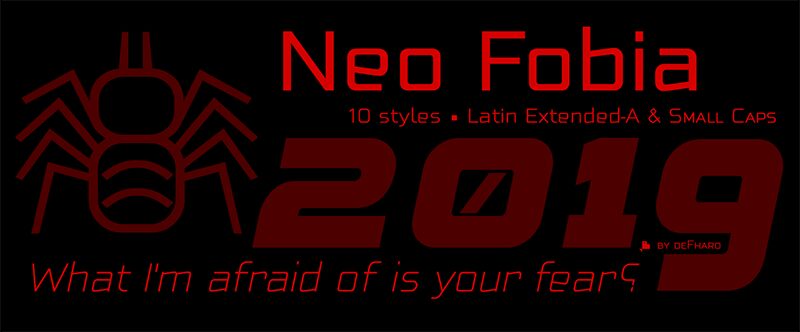
Neo Fobia is a sans serif typeface that includes letters in small caps, 10 exclusive fonts with square proportion of futuristic style with a geometrical design of maximum readability with a minimalist aspect. 2019
Neo Fobia is a very versatile typeface for graphic design and advertising, you can use it in poster design, video games, film titles, logos, brand design, etc.
Neo Fobia is a sans serif typeface that includes letters in small caps (Small Caps), 10 styles of square proportion and geometric construction, a rounded design with a current and technological aspect. Neo Phobia is inspired by the geometric fonts of the early twentieth century inspired by the school <a href="/creativo/bauhaus/"> Bauhaus </a> and is specially designed for use in any size for both screen and advertising printing and editorial. Neo Fobia is a very versatile typeface for graphic design and advertising, you can use it in poster design, video games, film titles, logos, brand design, etc. Includes the Bitcoin symbol and other monetary symbols.